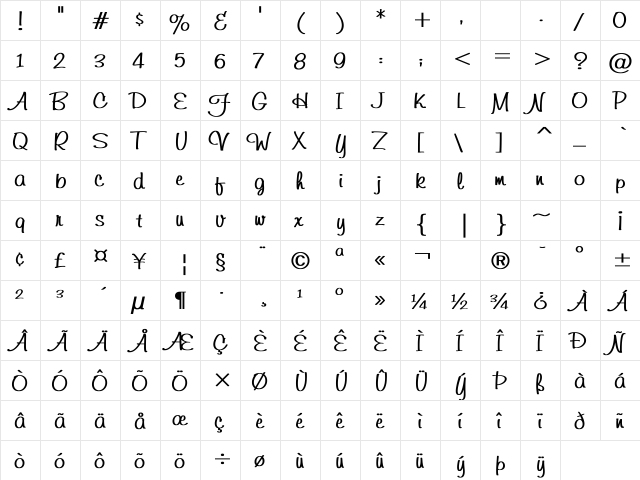
Freehand591 Bold Bold
Design Context for Freehand591 Bold Typeface
Freehand591 Bold flows with the natural rhythm of handwritten lettering, making it ideal for designs that call for warmth and personal expression. The heavy weight commands attention and anchors typographic hierarchies.
Font Pairing: Combine Freehand591 Bold with a simple geometric sans for maximum contrast — the tension between flowing curves and clean structure is a classic typographic pairing.
Pro Tip: Use Freehand591 Bold for short runs of text — names, titles, or taglines. Extended body copy in script faces tires the eye quickly.